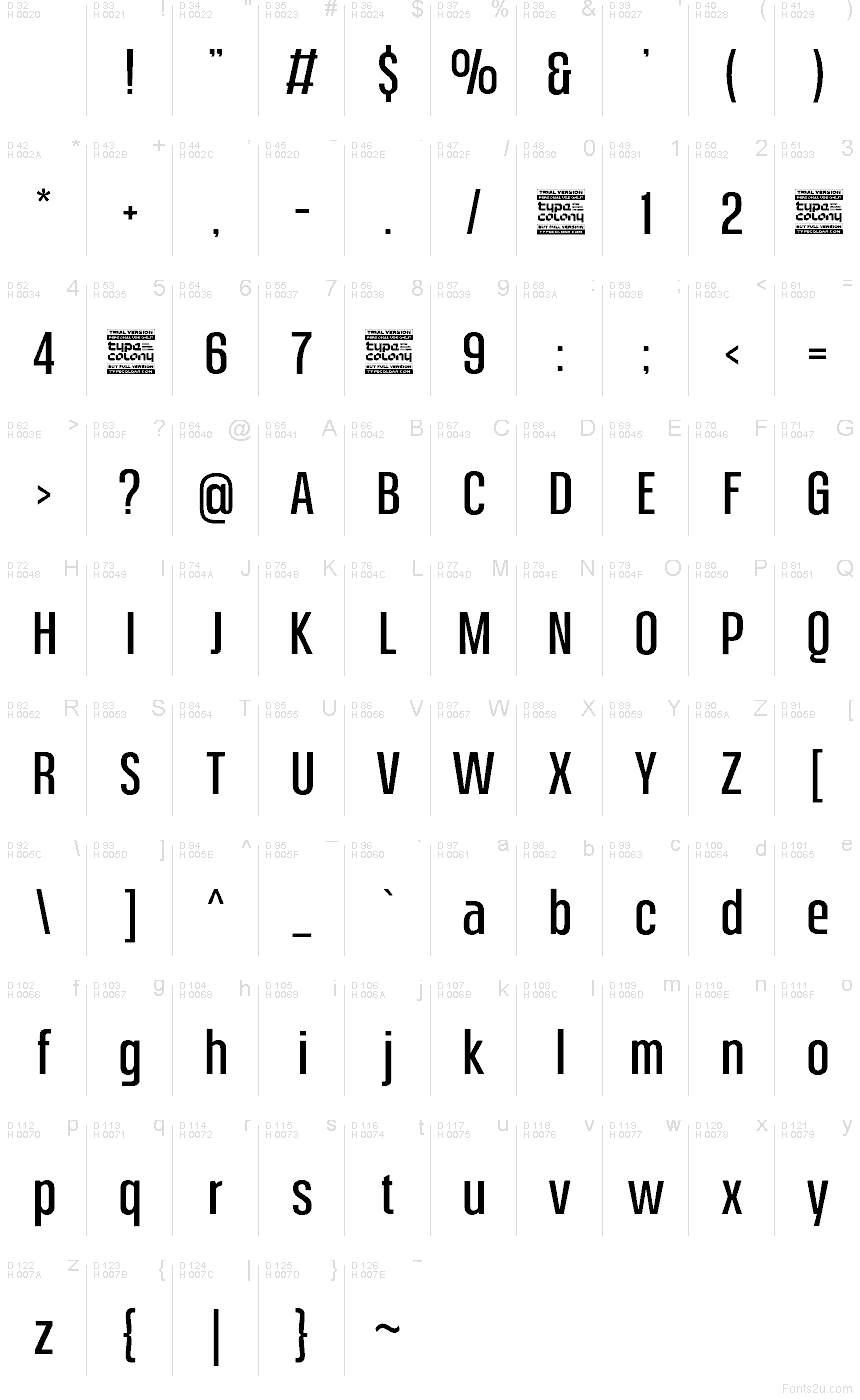
TC Kuareen font by Type Colony is a free sans serif typeface with a tall, ultra-condensed stance that feels precise without going cold. Its narrow columns, squared curves, and tight rhythm pack a surprising amount of information into slim spaces while keeping each letter crisp and legible. The result is a lean, urban texture that looks like it was cut from metal-clean, strong, and no-nonsense.
Using TC Kuareen, you can squeeze bold statements into tight layouts: posters, spine titles, app sidebars, packaging, event flyers, and editorial intros all benefit from its vertical punch. This free font holds its own at large sizes, but also reads clearly in compact labels and UI elements. For a simple pairing, match TC Kuareen headlines with a wider, softer sans for body text to balance its tall, concentrated energy.
Type Colony
Hasto Nugroho, Aliv PAndu